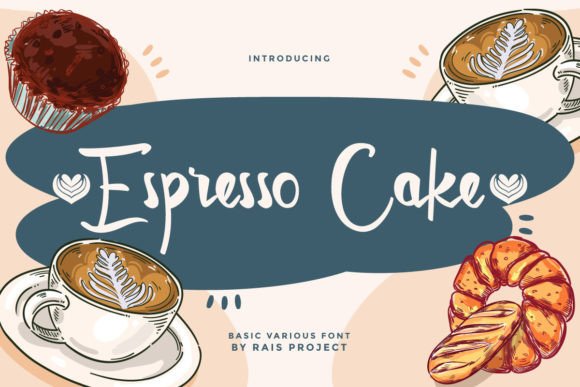
Journey into the realm of captivating typography with Espresso Cake Font, a charming and delightful script font that dances across the digital canvas with its playful and endearing style. Its bubbly characters, like tiny bursts of joy, add a touch of whimsy to every word, inviting you to immerse yourself in its unique charm.
Espresso Cake Font is the perfect dance partner for your creative projects, whether you're crafting heartfelt invitations, designing eye-catching branding, or creating social media graphics that sparkle with personality. Its slightly uneven lines, reminiscent of a handwritten note, infuse your designs with a touch of authenticity and warmth.
With Espresso Cake Font, you'll discover a world of expressive possibilities. Its playful spirit lends itself effortlessly to handwritten quotes, heartwarming messages, and whimsical illustrations. Imagine your words taking on a life of their own, dancing across the page with a sense of joy and delight.
Step into the world of Espresso Cake Font, where every letter is a celebration of individuality and creativity. Its quirky slant, like a mischievous smile, adds a touch of intrigue and playfulness to your designs. Dive into the realm of this enchanting font and let your imagination run wild.